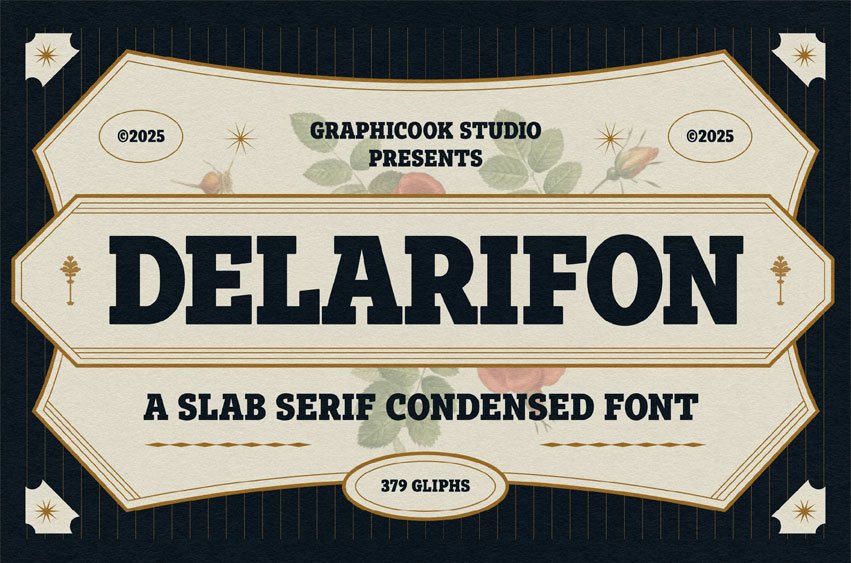
Delarifon Font is a bold slab serif font wrapped in a vintage style. It’s well-suited for vintage magazine layouts, classic movie posters, or heritage product branding.
Delarifon is perfect for headlines, logotypes, magazines, packaging, quotes, movies, games, cover albums, book covers, and flyers, it’s a perfect solution for creating eye-catching designs that stand out in any context.